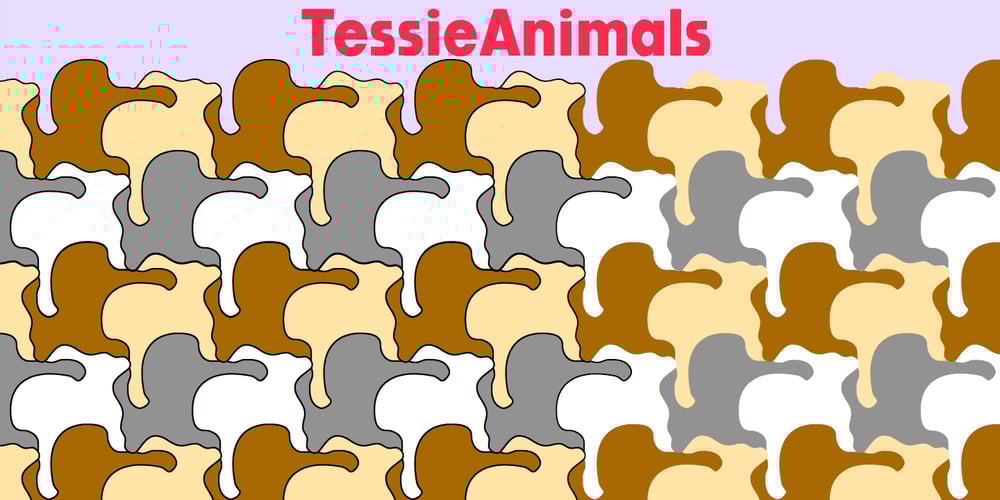
TessieAnimals
TessieAnimals font
TessieAnimals Font Family was designed by Robert Schenk and published by Ingrimayne Type. TessieAnimals contains 2 styles and family package options. A tessellation is a shape that can be used to completely fill the plane. Simple examples are isosceles triangles, squares, and hexagons. Tessellation patterns are eye-catching and visually appealing, which is the reason that they have long been popular in a variety of decorative situations. These Tessie fonts have two family members, a solid style that must have different colors when used and an outline style. They can be used separately or they can be used in layers with the outline style on top of the solid style. For rows to align properly, leading must be the same as point size. To see how patterns can be constructed, see the “Samples” file here. Shapes that tessellate and also resemble real-world objects are often called Escher-like tessellations. This typeface contains many Escher-like tessellations that resemble animals including horses, goats, rabbits, fish, frogs, and other vertebrates. Most or all of these shapes were discovered/created by the font designer during the past twenty years in the process of designing maze books, coloring books, and a book about tessellations. (Earlier tessellation fonts from IngrimayneType, the TessieDingies fonts, lack a black or filled version so cannot do colored patterns. The addition of a solid style that must be colored makes these new fonts a bit more difficult to use but offers far greater possibilities in getting visually interesting results.)